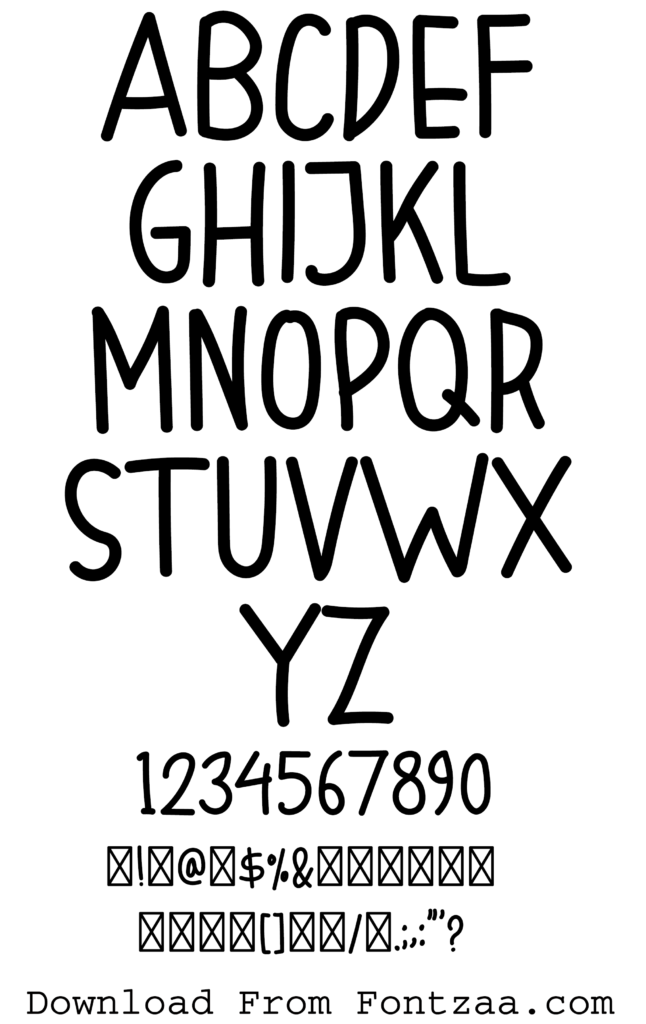
Small Handy Font is a sweet and more friendly typeface crafted to give projects this hand-drawn kind of feel. Packed with features like informal and slightly irregular letterforms, the air is filled with warmth and friendliness. This font will be perfect for a personal project like a greeting card or casual invitation, where you need things just that little bit more personal.
The uniqueness of Small Handy Font is all in the homemade, hand-drawn look. Every letter appears to have been carefully written down, thus adding a personal and intimate quality to the text. This makes it perfect for designs that require a more personalized and less formal look.
Despite the informality in style, the Small Handy Font remains legible and practical. Legible at all sizes and across all media, the clarity and spacing of the letters keep them looking clear and readable. No matter what application is used—headlines, body text, or decorative—this font maintains that friendly and inviting appearance.
Small Handy Font Family
- Small Handy Font Bold
Small Handy Font is aesthetic and it looks well, user-friendly. It strikes the right balance between being professional and warm, making it ideal for projects where a friendly allure is needed, but not too noninstructive or loose. Smooth integration into platforms enables design processes in an unproblematic manner.